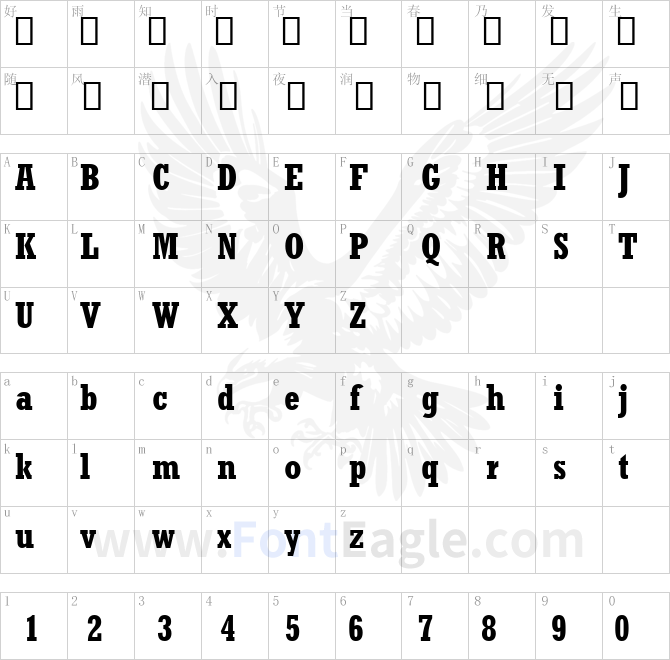
Rockwell MT Condensed Bold.ttf Font Image
Rockwell MT Condensed Bold.ttf Base Font Information
- Font name:Rockwell MT Condensed
- Font Subfamily ID:Monotype – Rockwell MT Condensed Bold
- Font Full Name:Rockwell MT Condensed Bold
- Font Version:Version 2.0 – March 2001
- Postscript:RockwellMT-CondensedBold
Rockwell MT Condensed Bold.ttf Characters Sample